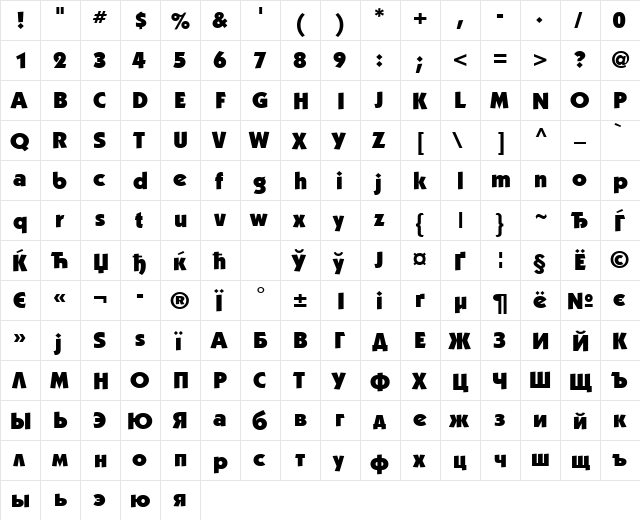
KabelCTT Ultra Regular Font Preview
KabelCTT Ultra Regular
Design Context for KabelCTT Ultra Typeface
KabelCTT Ultra takes a measured approach to typography — its balanced proportions and neutral character make it a reliable workhorse for both digital and print work.